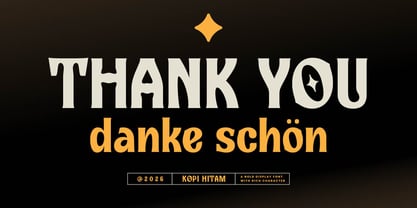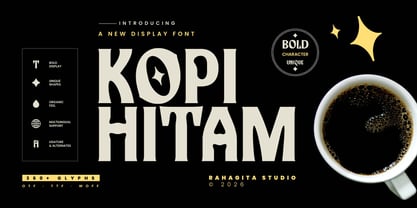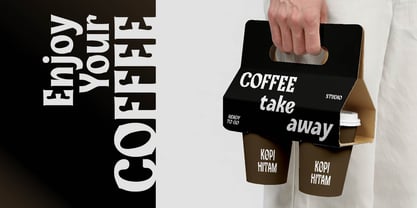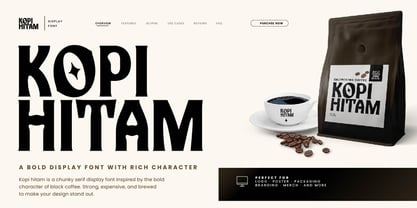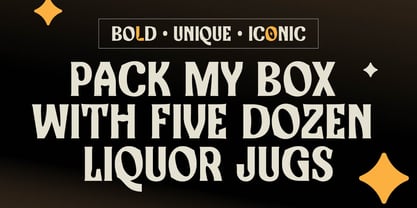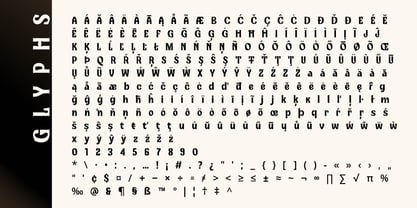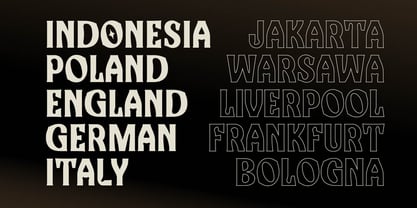
Kopi Hitam
by RahagitaType
The Kopi Hitam Font Family was designed by Setiadi Rahagita and published by RahagitaType. Kopi Hitam contains 1 styles. More about this family
Kopi Hitam is a powerful display typeface born from the soul of bold, unapologetic design. Inspired by the deep and intense character of black coffee, this chunky serif font delivers strong visual weight with a distinctive organic feel that sets it apart from ordinary display fonts.
Whether you’re designing a coffee brand identity, a streetwear label, a bold poster, or premium product packaging — Kopi Hitam brings an iconic, editorial look that instantly commands attention.
Designers: Setiadi Rahagita
Foundry: RahagitaType